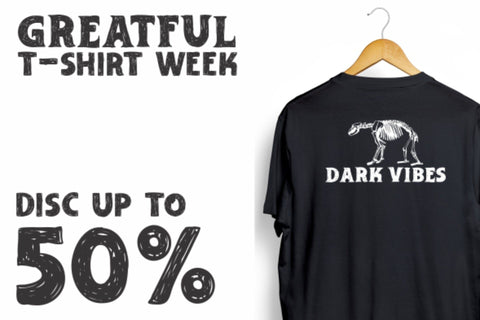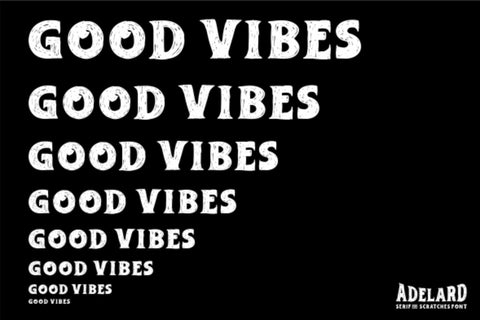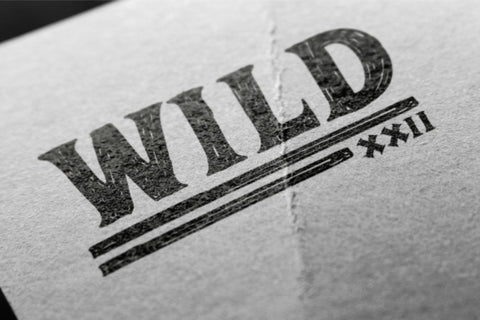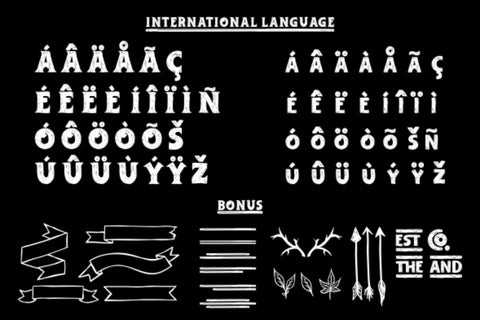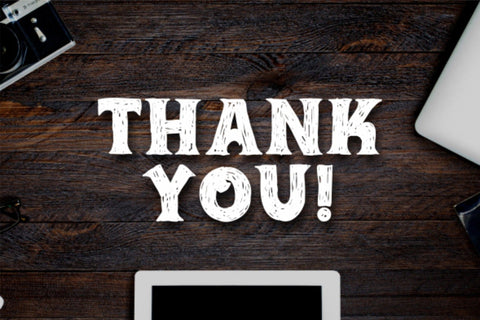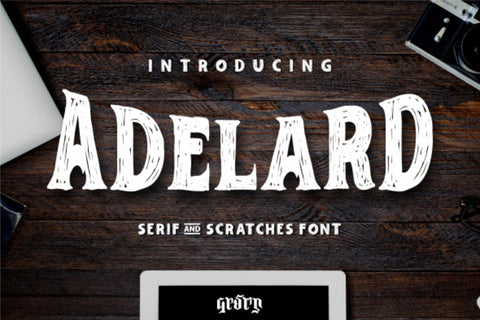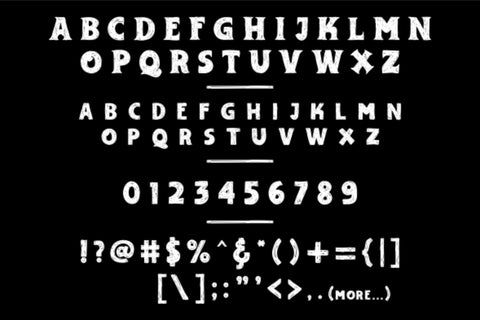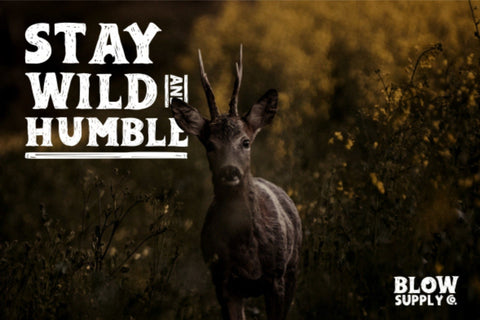
ADELARD - Scratches Font
ADELARD is a font created with manual scretches to make your text look more natural just like using a pen. Adelard you can use for making a poster, quote, screen printing, or logo text that nuanced natural writing.
It also comes with an international language and a lot of punctuation.